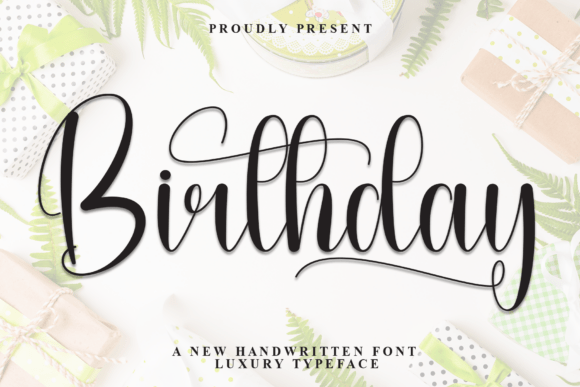
The Magical World of Birthday Font: Adding Whimsy to Your Designs
I still remember the time I was working on a wedding invitation project, and my client asked me to add a touch of playfulness to the design. I scoured the internet for the perfect font, but nothing seemed quite right. That was until I stumbled upon the enchanting Birthday Font. Its hand-crafted charm and whimsical vibe instantly won me over, and I knew I had found the perfect fit for my project. In this article, I’ll share my love for this delightful font, its features, and how to make the most of it in your designs.
A Personal Review: What I Love About Birthday Font
Here’s what makes Birthday Font a standout in my book:
- ✨ Unique, hand-crafted design that adds a touch of personality to any project
- ✅ Exceptional legibility, even at smaller font sizes
- 💫 Extensive character set, including glyphs and stylistic alternates
- 🎉 Perfect for a variety of design projects, from wedding invitations to social media graphics
While Birthday Font is a stunning addition to any design, there are a few things to keep in mind:
- ⚠️ Limited suitability for body text, as it’s best used for display purposes
The Story Behind Birthday Font
Birthday Font was designed with the intention of capturing the magic of handwritten script. Its creator, a talented type designer, aimed to craft a font that would bring joy and whimsy to designs. With its intricate details and charming character, Birthday Font has become a favorite among designers and crafters alike.
| Font Name | Birthday Font |
| What type of projects is Birthday Font best suited for? | Birthday Font is perfect for display purposes, such as wedding invitations, greeting cards, and social media graphics. |
With its enchanting charm and whimsical design, Birthday Font is sure to become a staple in your design arsenal. Whether you’re a seasoned designer or a creative hobbyist, this delightful font is sure to bring a touch of magic to your projects.